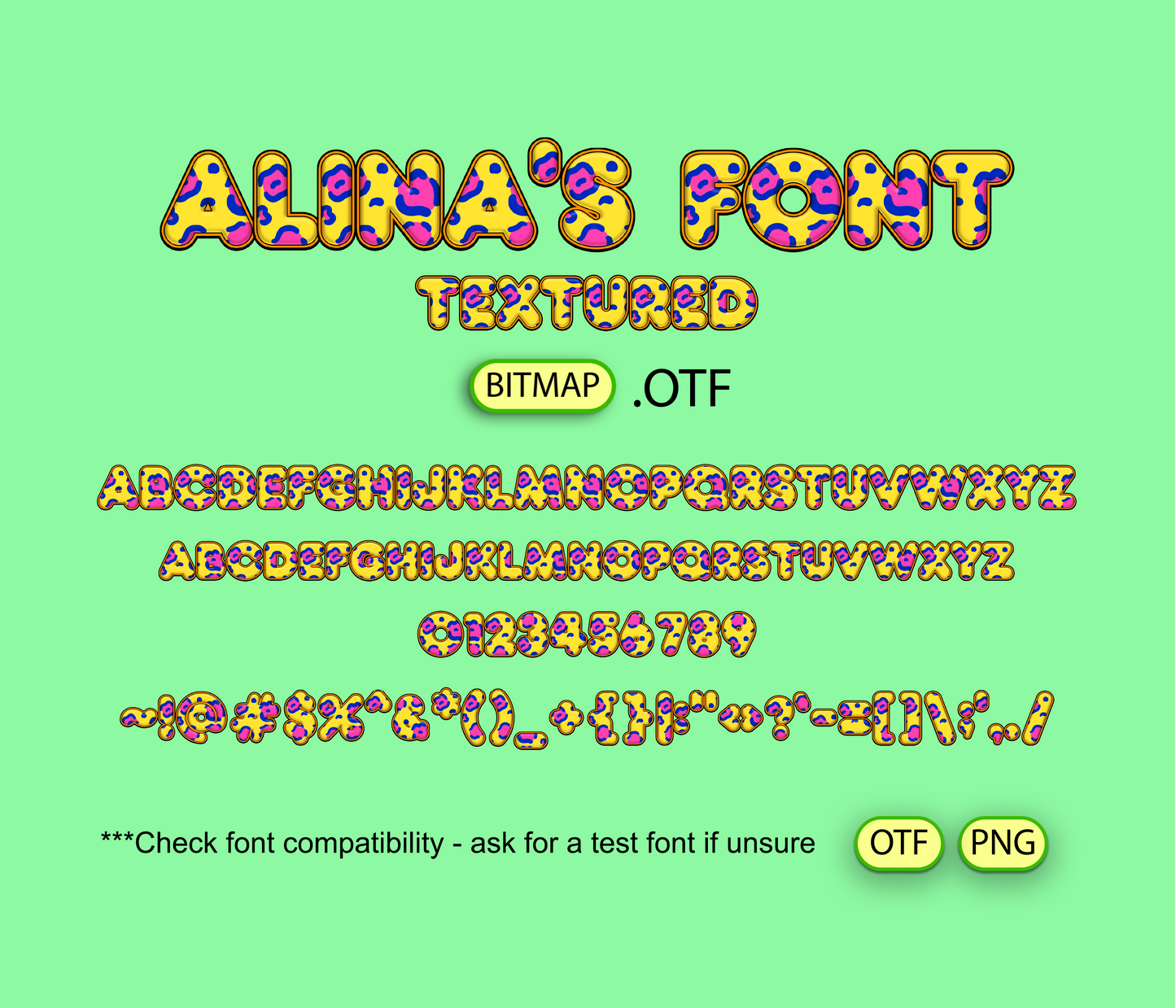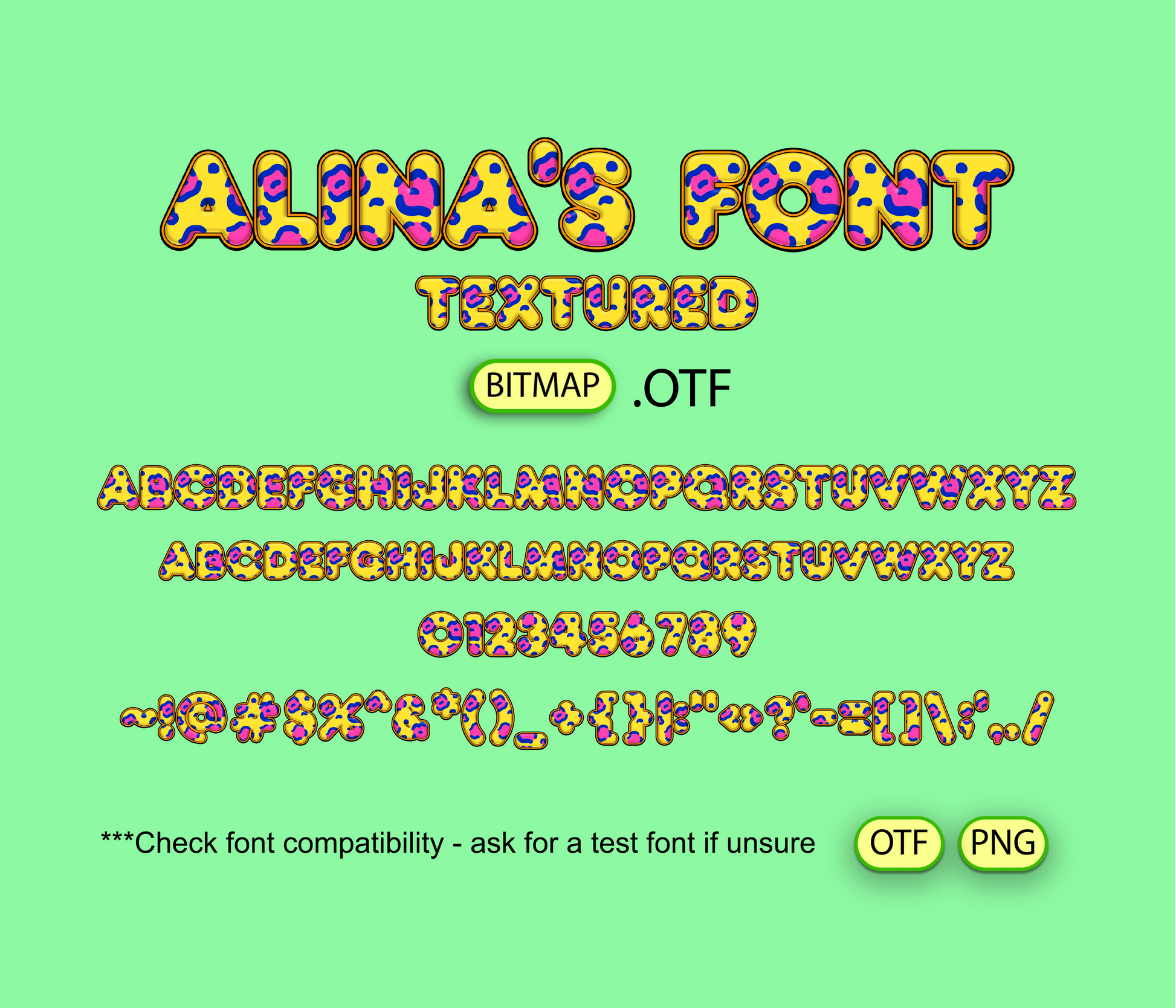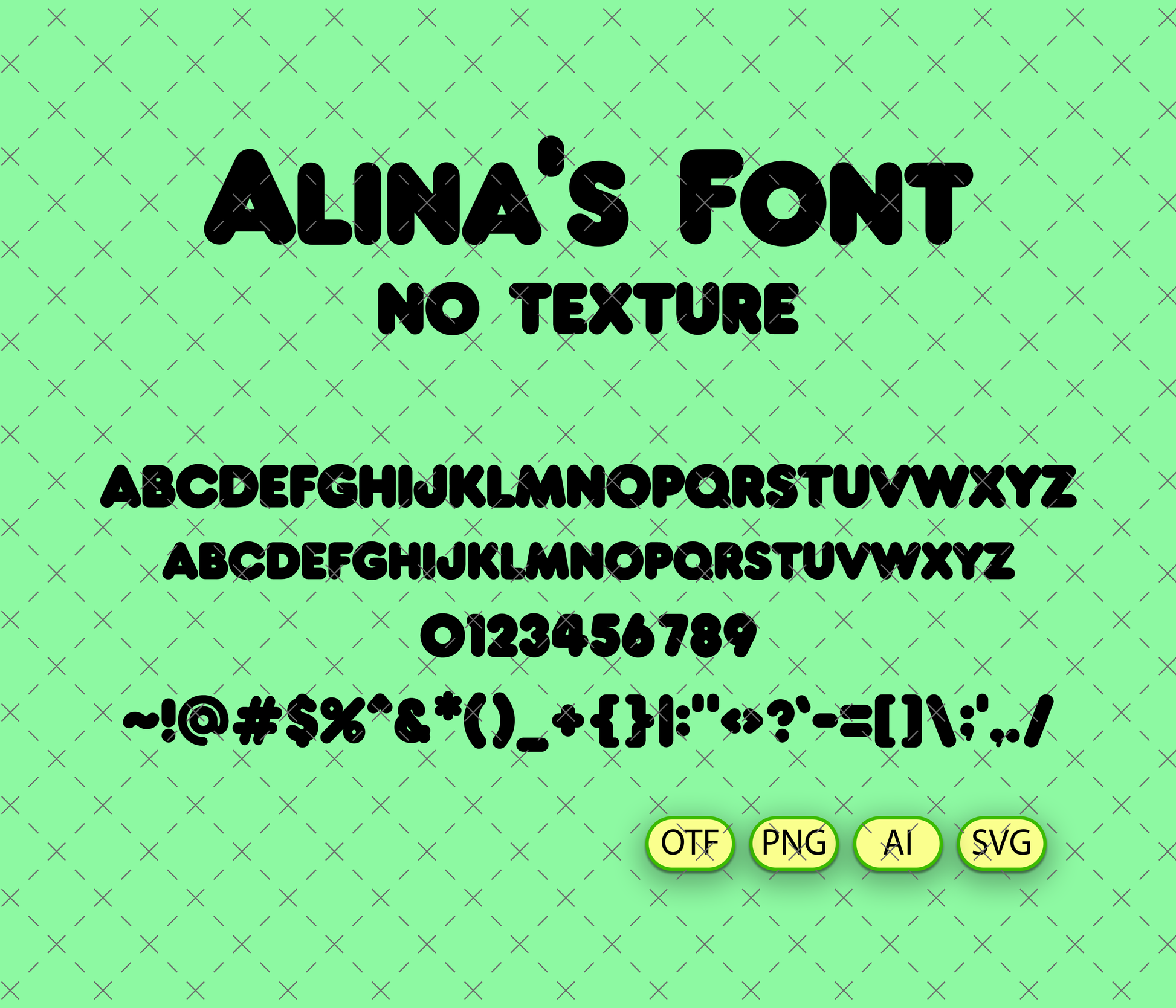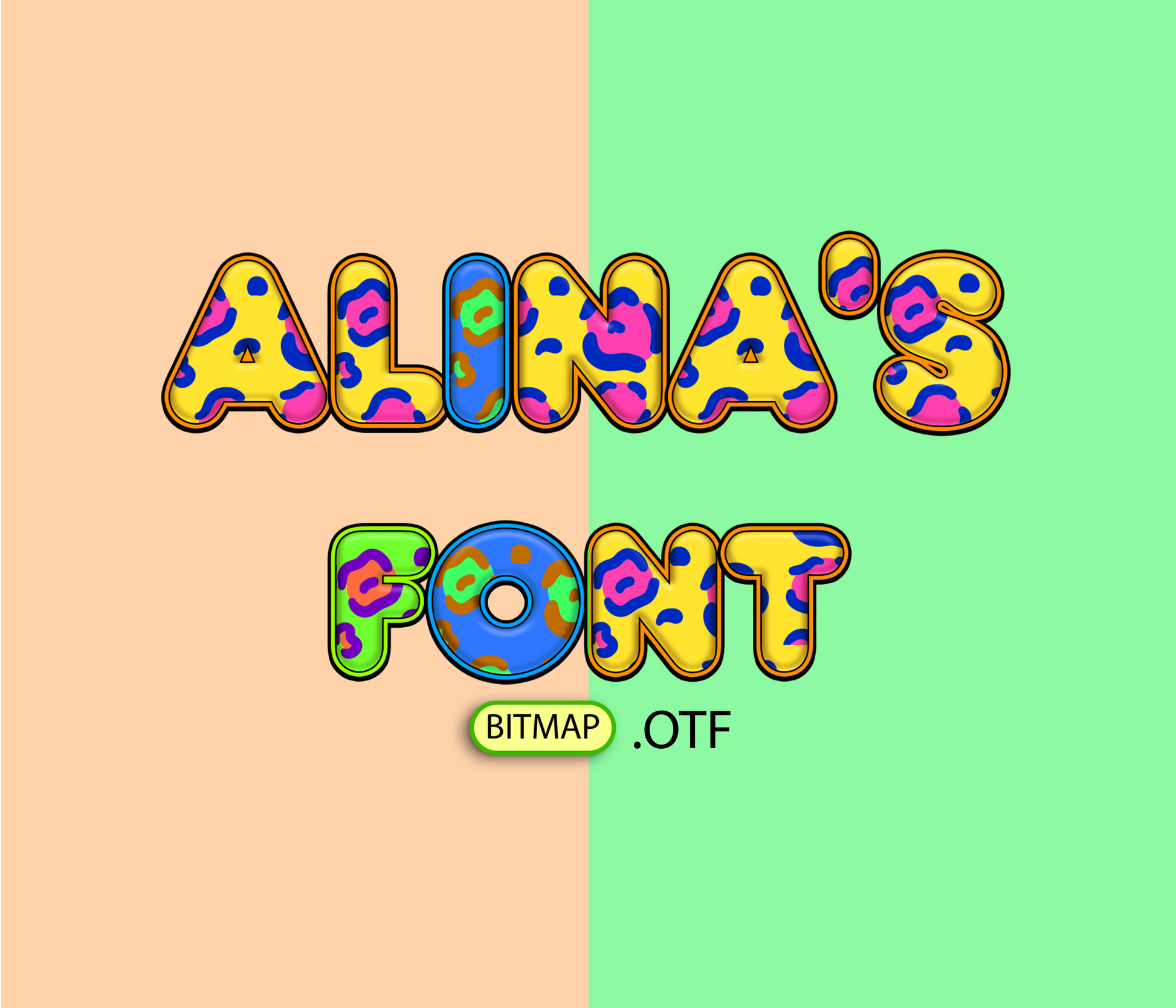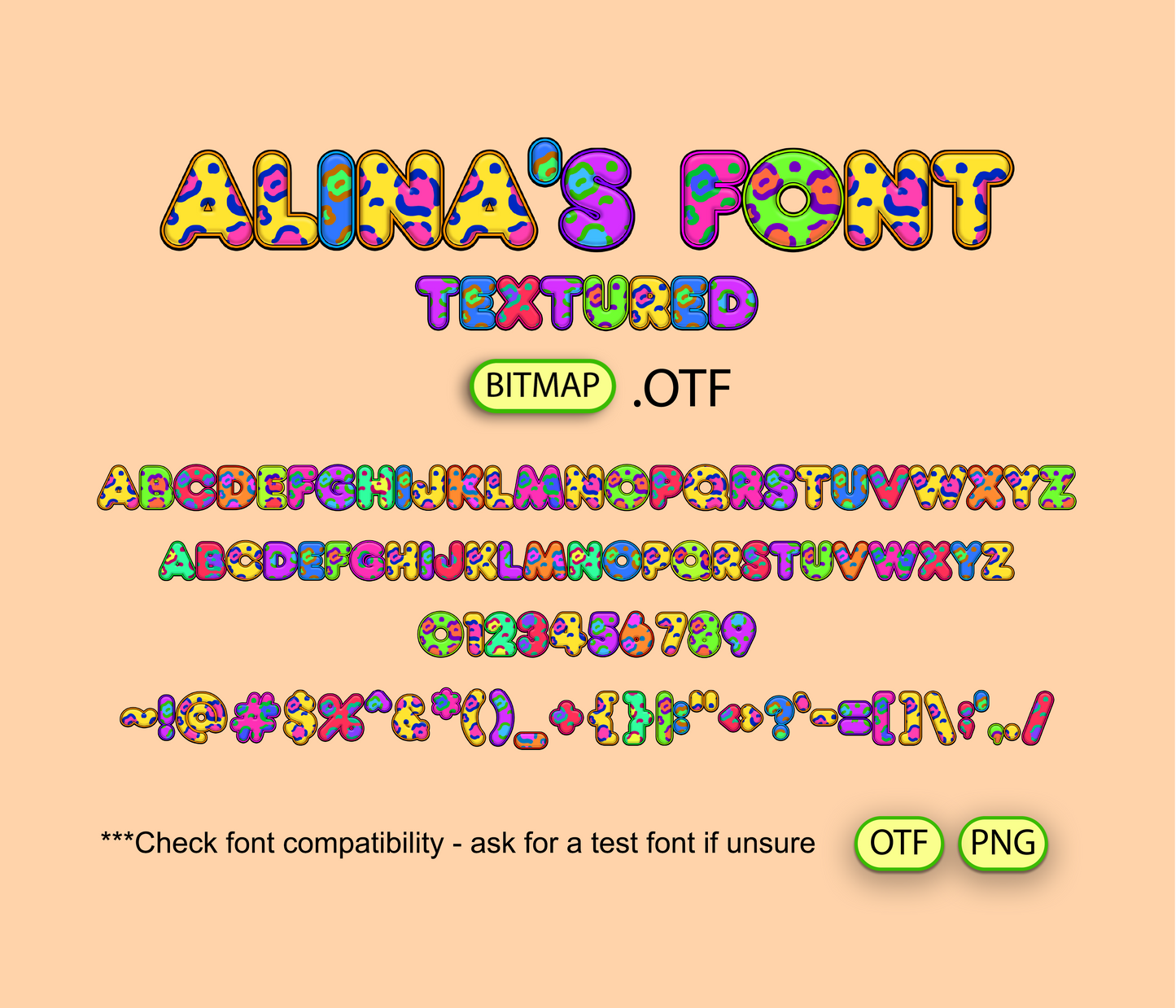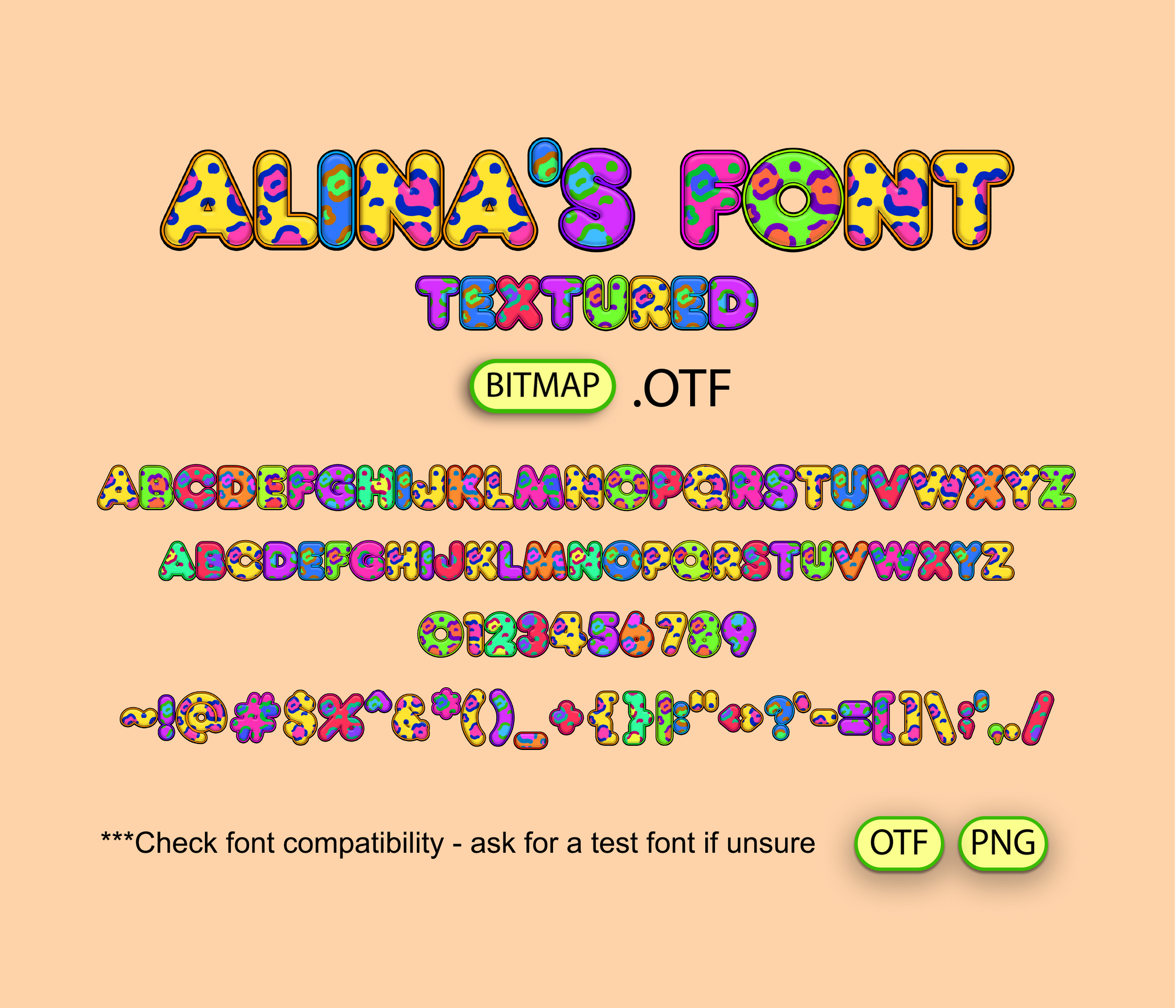
Animal Safari Font Textured
Step into the wild world of bold pattern design with our Animal Safari Font Textured, capturing the fierce beauty of leopard and cheetah prints in vibrant, eye-catching color. Perfect for fashion designers, party planners, content creators, and creative professionals, this font brings the untamed, exotic spirit of wild pattern aesthetics to your projects. Create stunning invitations, merchandise, or digital content with the fierce energy of animal print culture.
Bold Wild Typography for Fashion, Party & Lifestyle Design Projects
Our Animal Safari Font Textured features dramatic, stylized letterforms wrapped in rich leopard and cheetah print textures, reflecting the world of exotic wildlife patterns and fierce, colorful style. Ideal for:
Whether crafting fashion-forward materials, designing safari-themed products, or adding a wild touch to personal projects, this font communicates the vibrant essence of leopard and cheetah print aesthetics. Ready to unleash your wildest designs? This font is your key to fierce, eye-catching, impactful creativity.
Animal Print Color Font